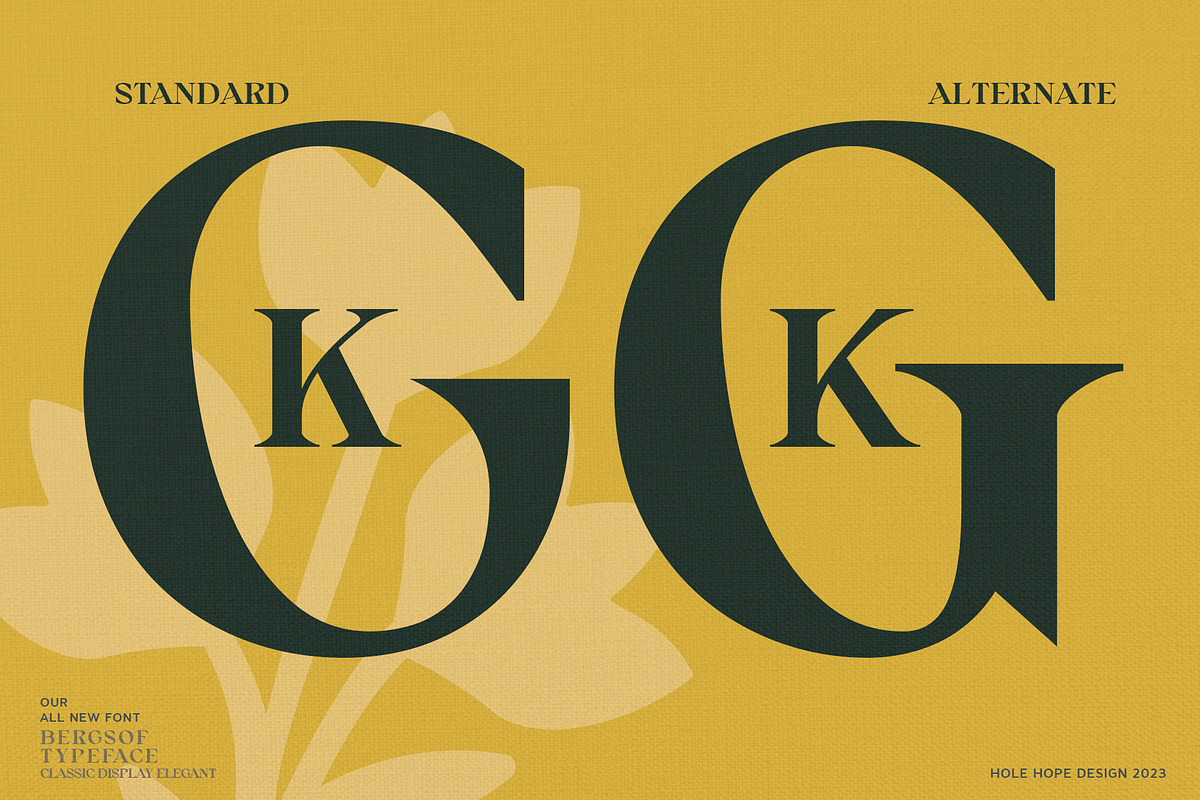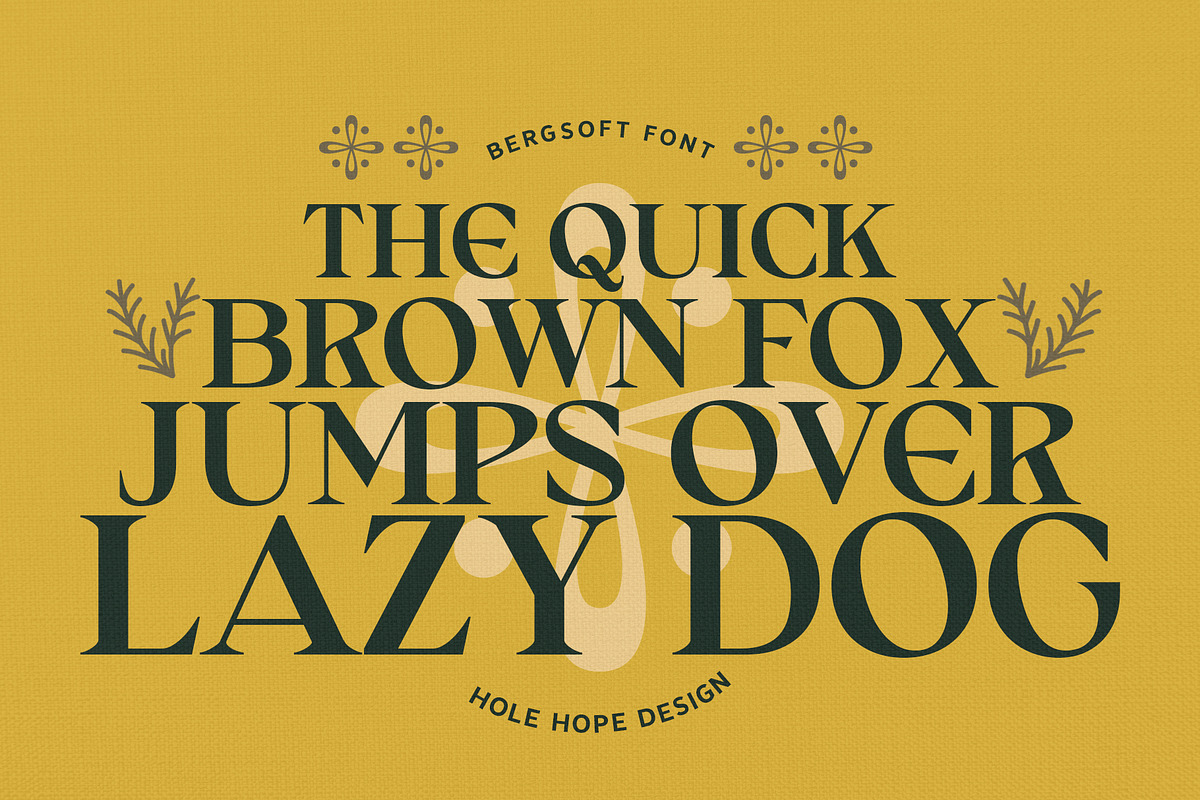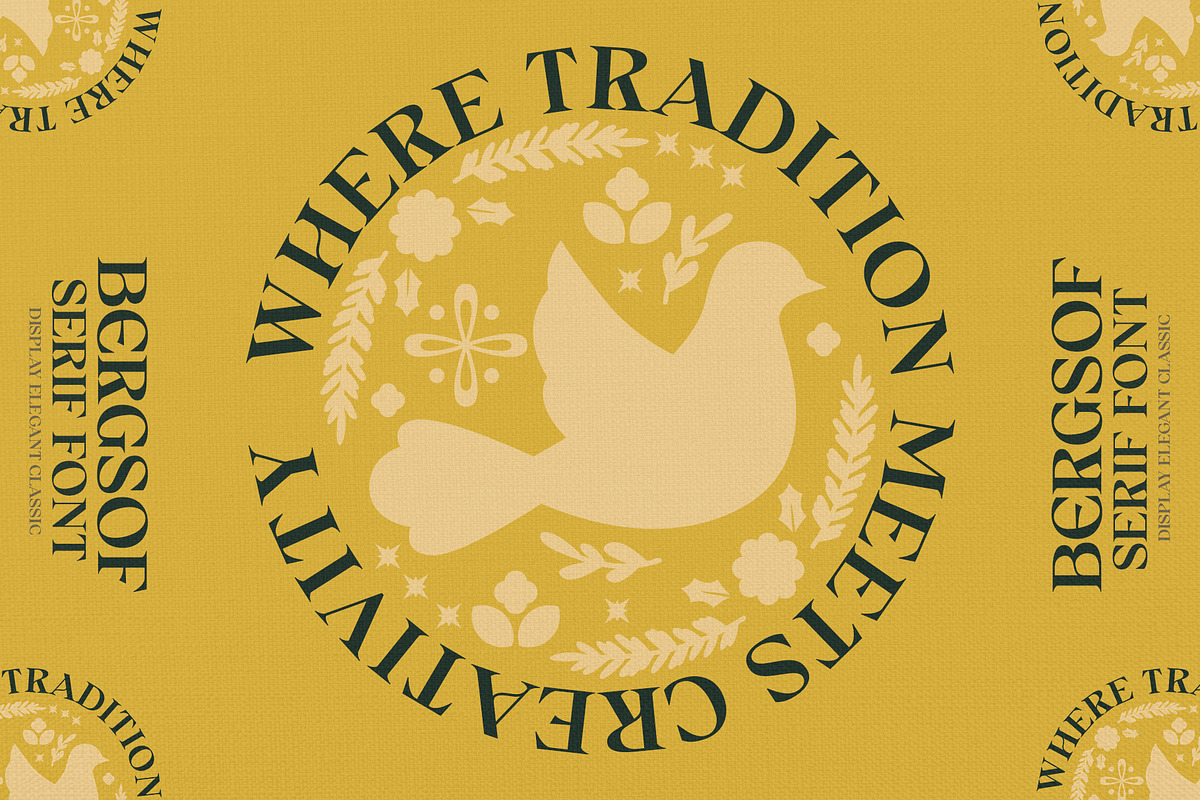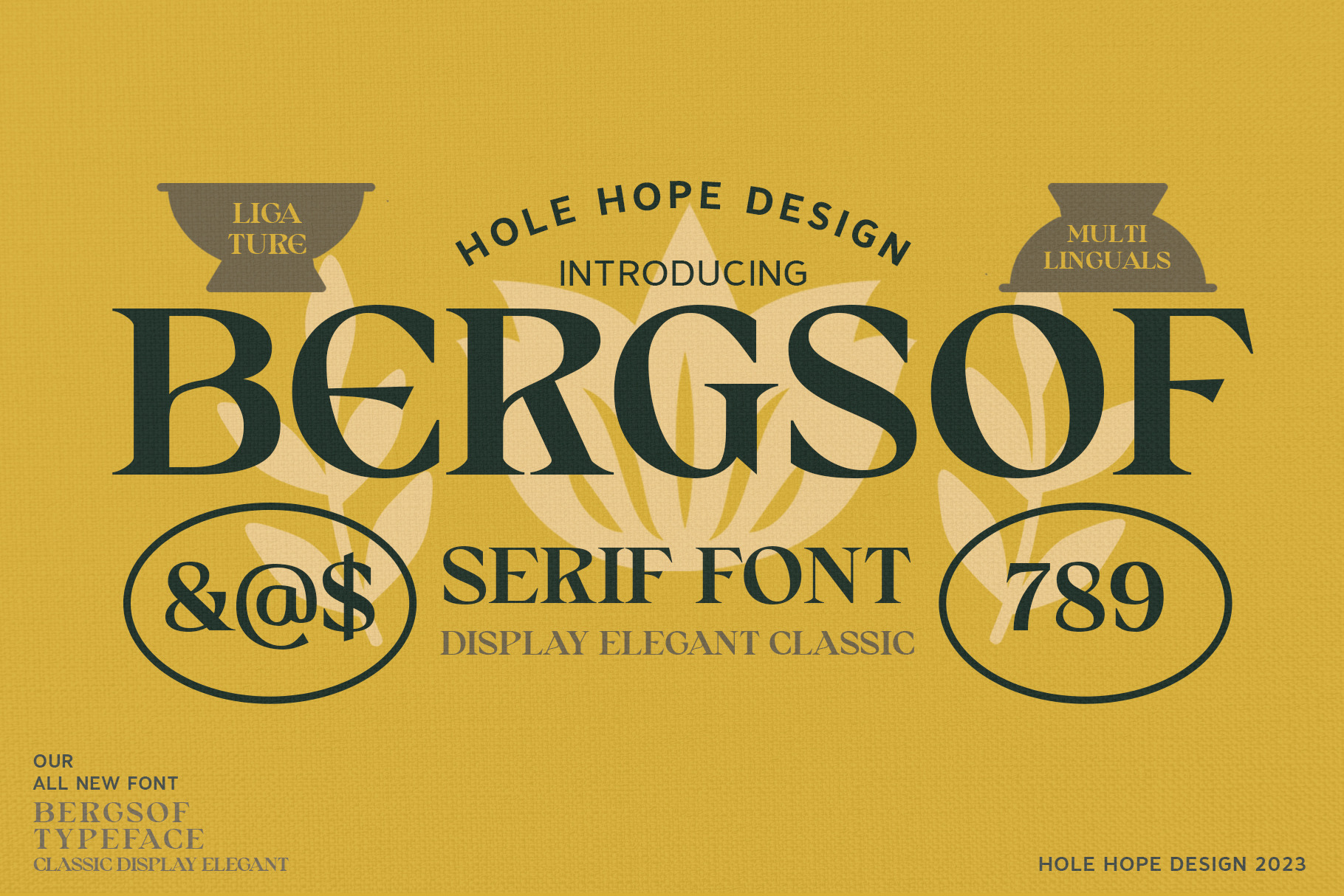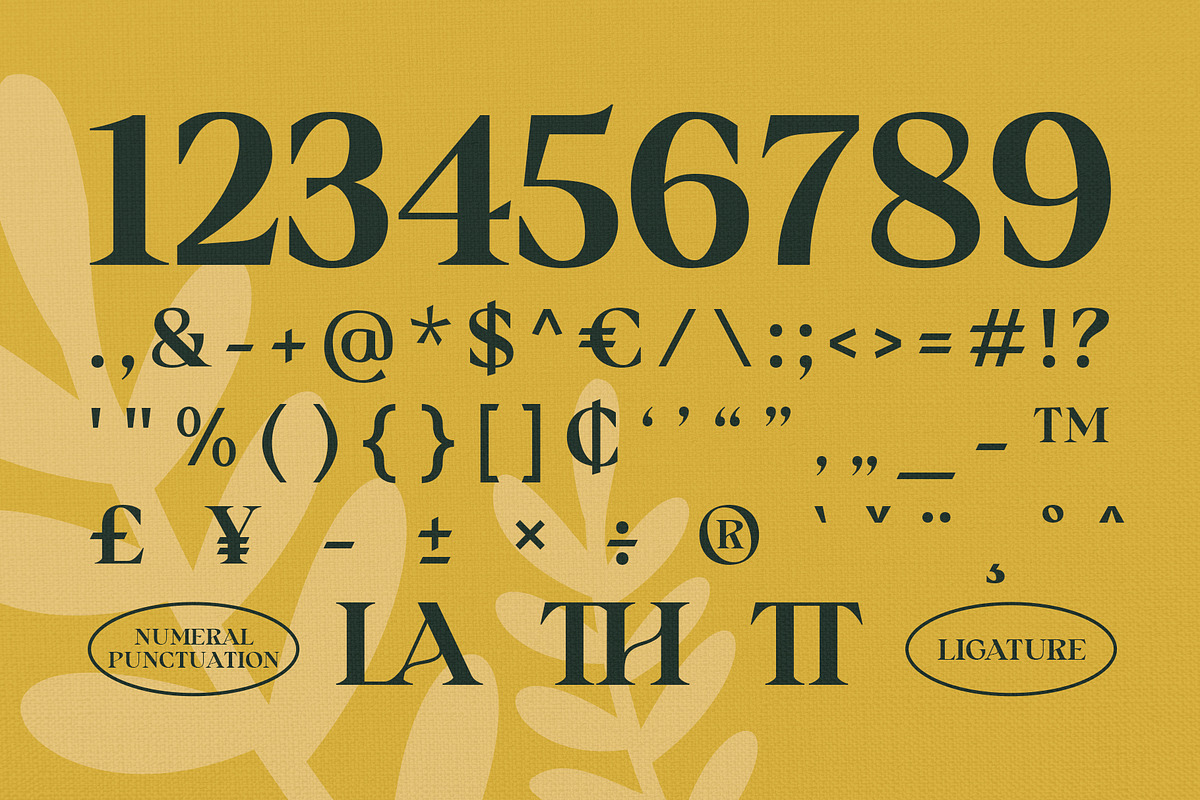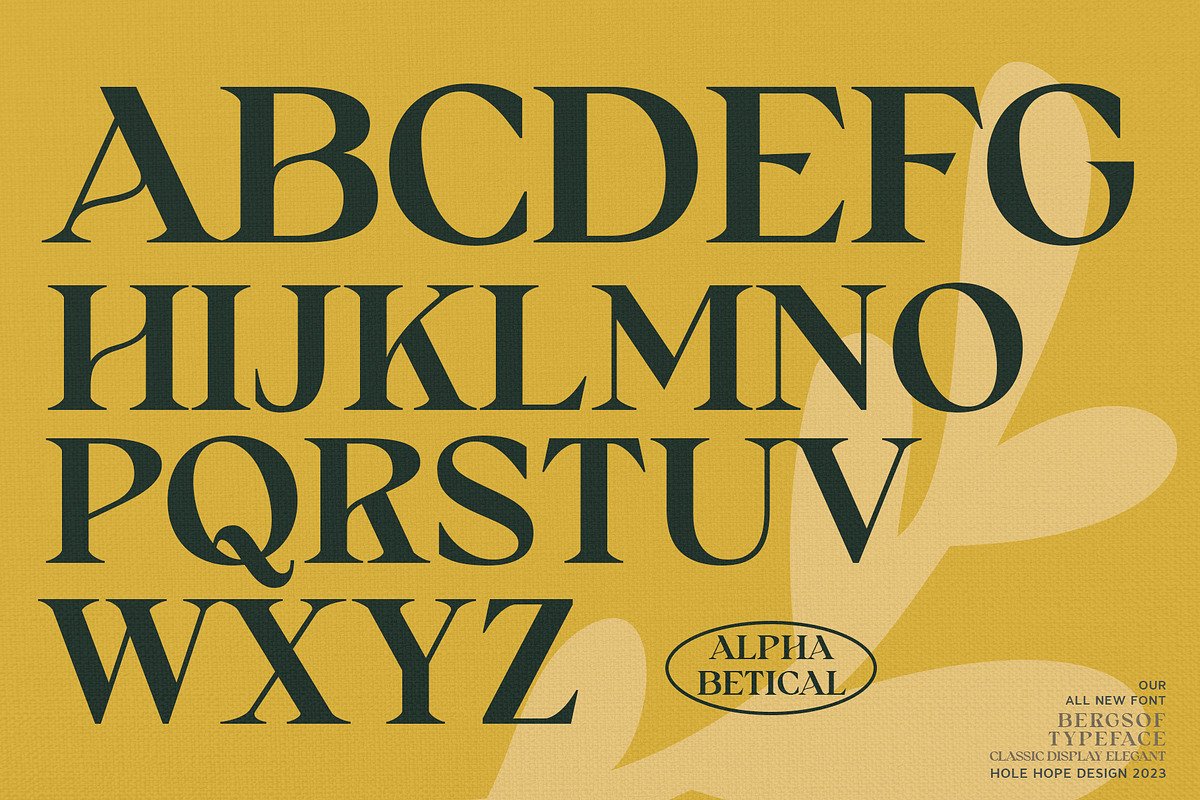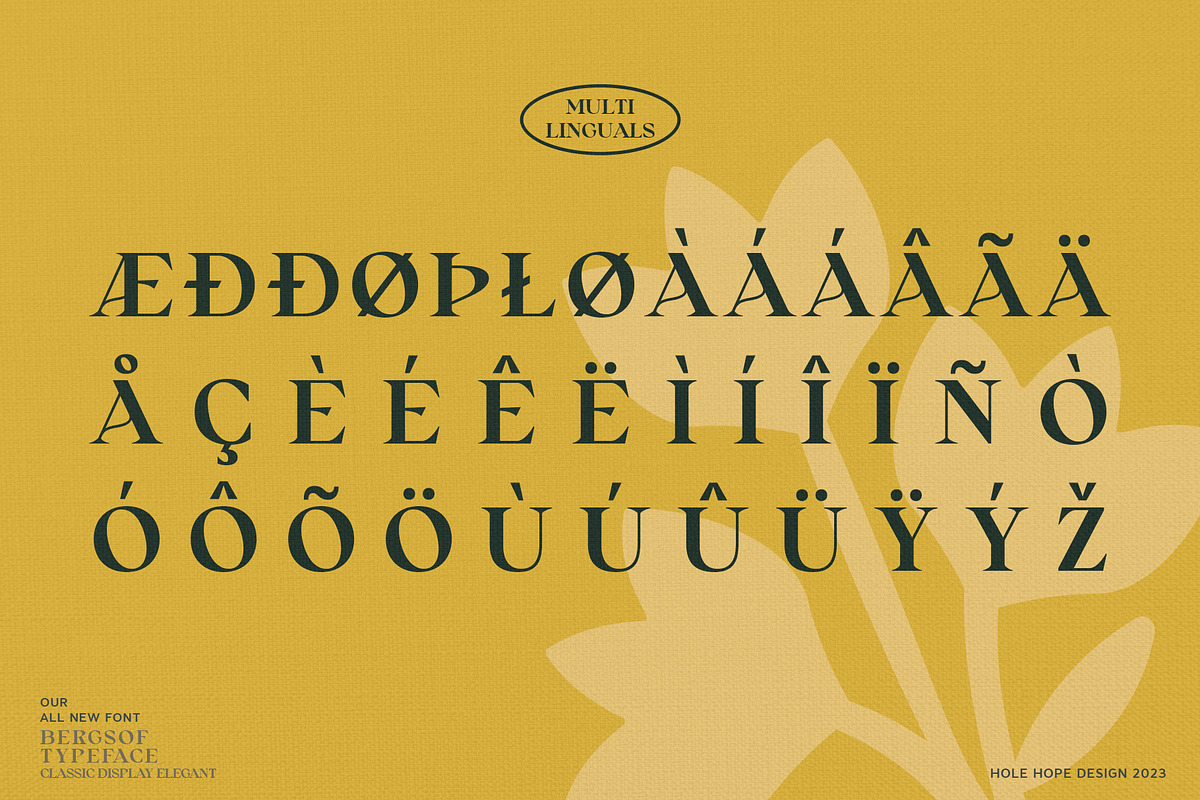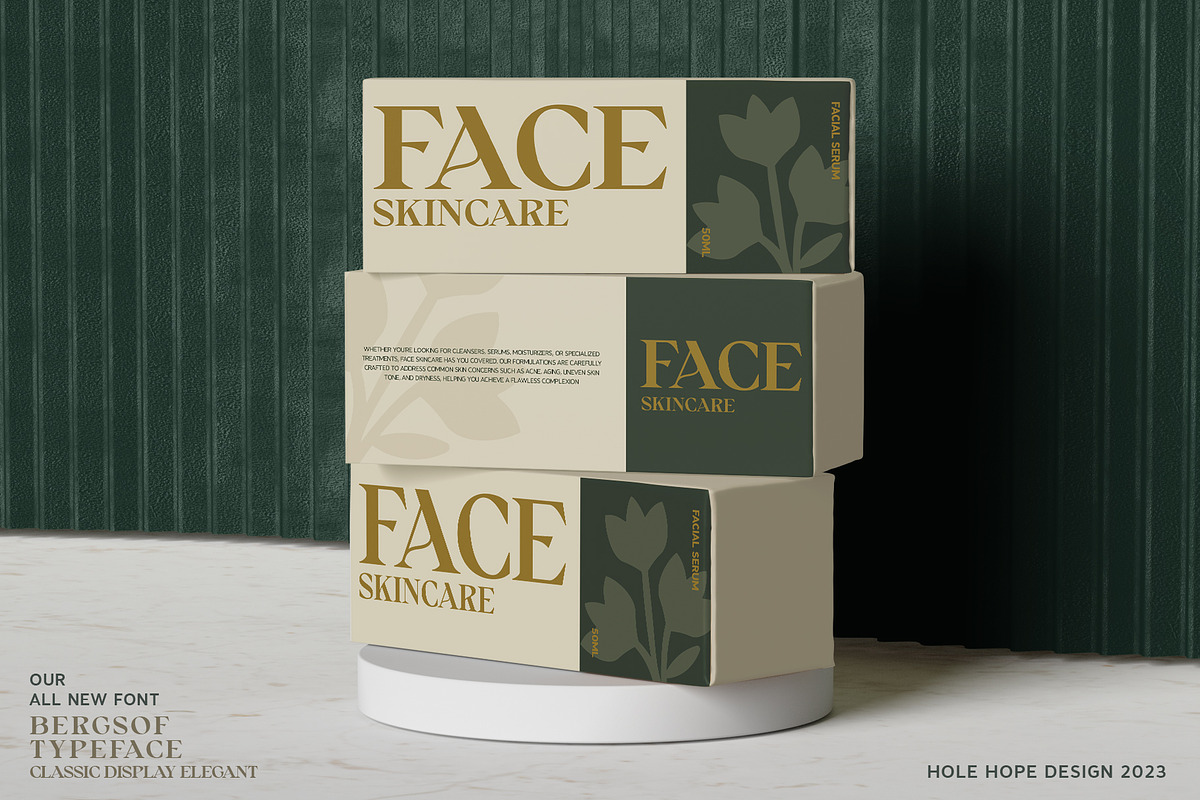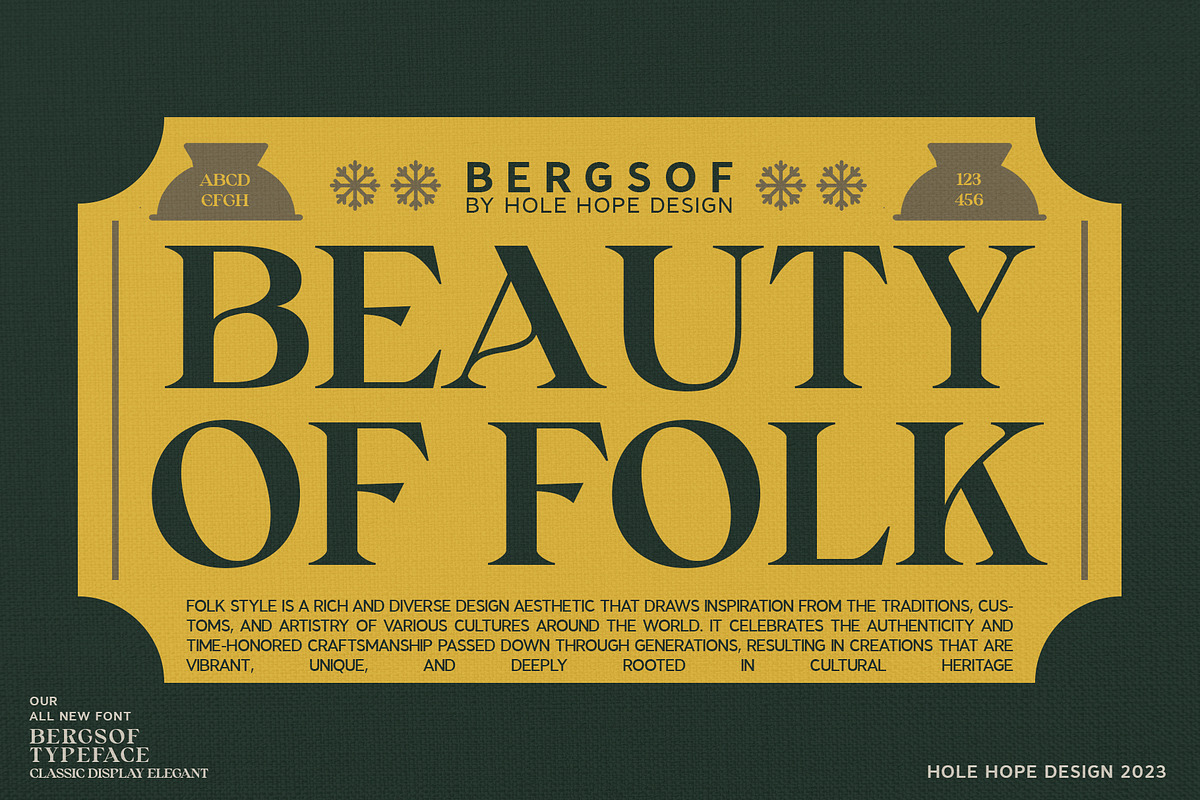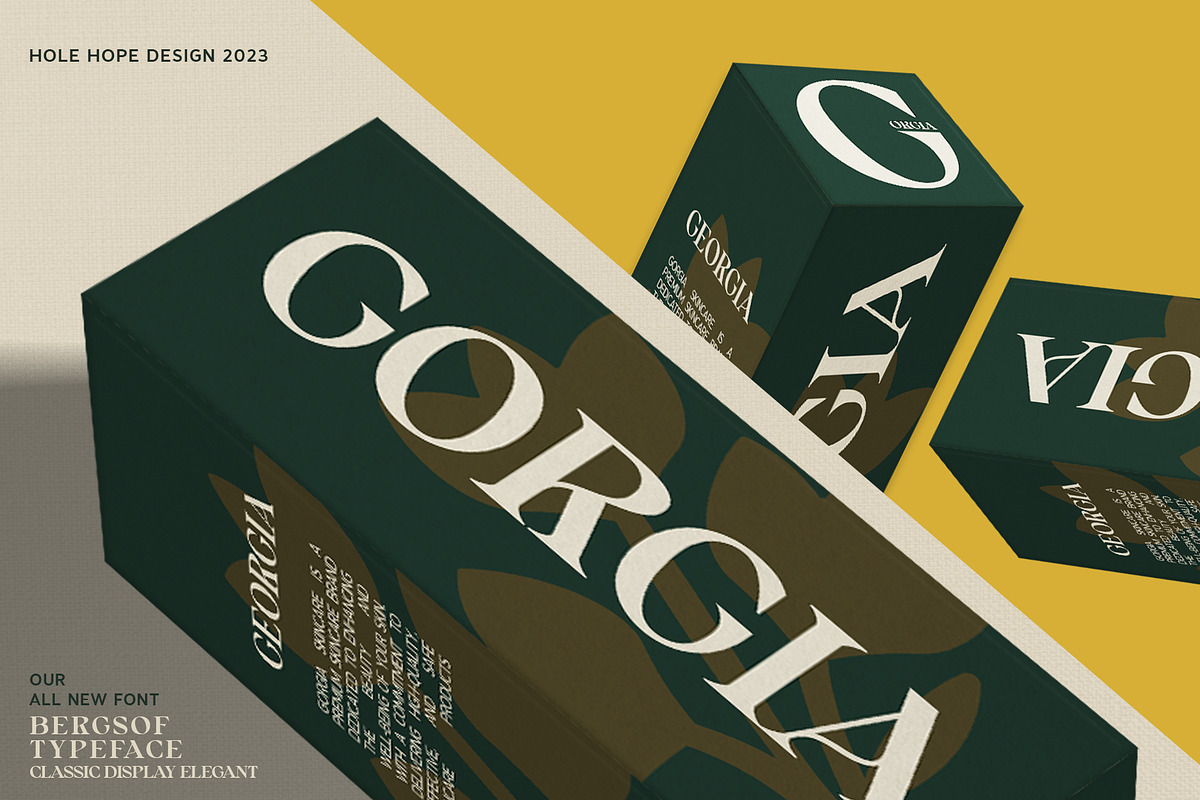
Bergsof | Elegant Classic Font
Bergsof is a serif classic elegant font that typify timeless and grace with unique refinement of serifs – those small decorative strokes. It seamlessly blends the elegance of serifs with classic air.